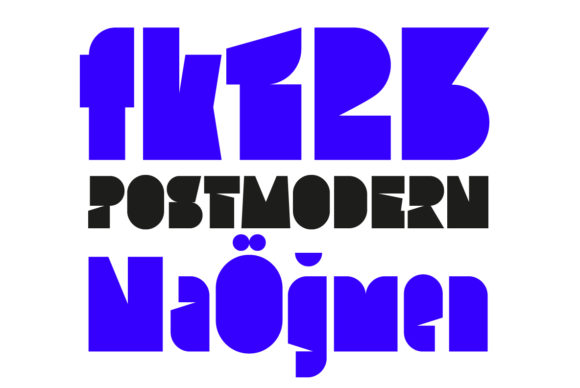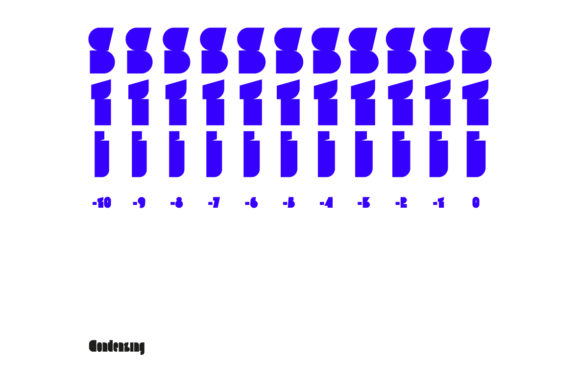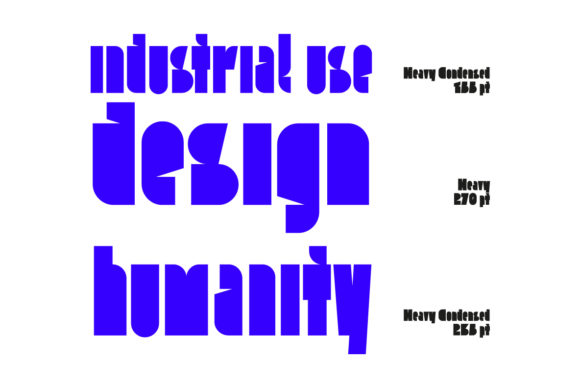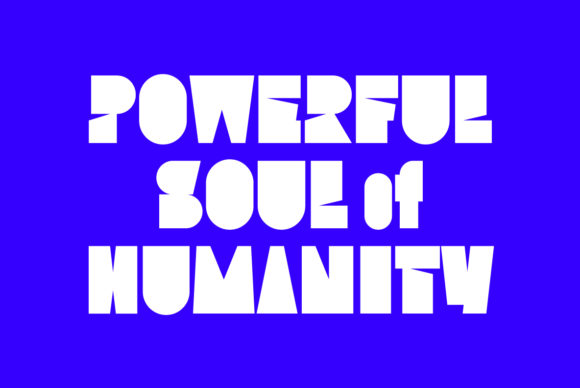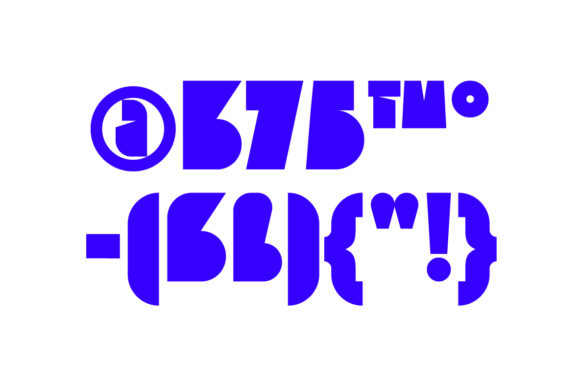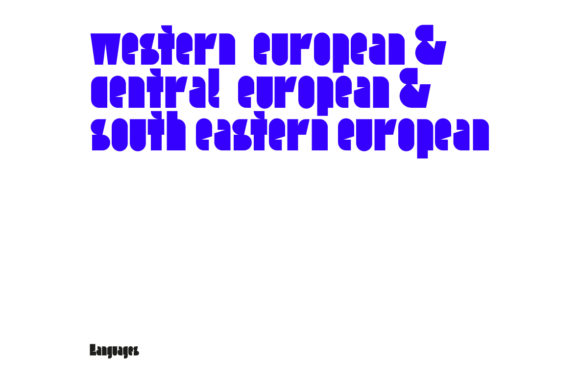
Introduction to Savad Font
Savad is an Arabic-Persian word meaning darkness and blackness.
Add this bold and thick lettered display font to your urban styled or informal designs and make them stand out .